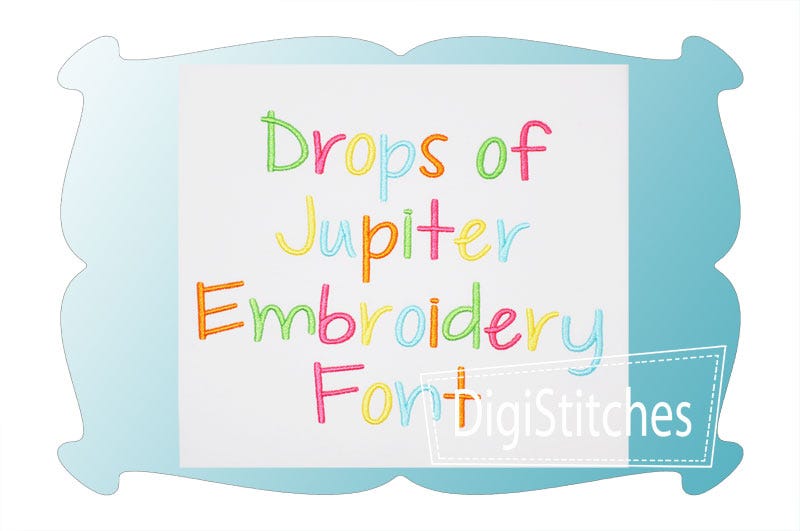
Drops Of Jupiter Satin Stitch Embroidery Font
Drops Of Jupiter Embroidery Font
Drops Of Jupiter Embroidery Font embroidery font is, for sure, out of this World! Featuring super bold letters that really stand out on t-shirts and projects.
A great font that works for both boys and girls!
Upper case letters A thru Z, lower case letters a thru z, numbers 0-9, punctuation as shown.